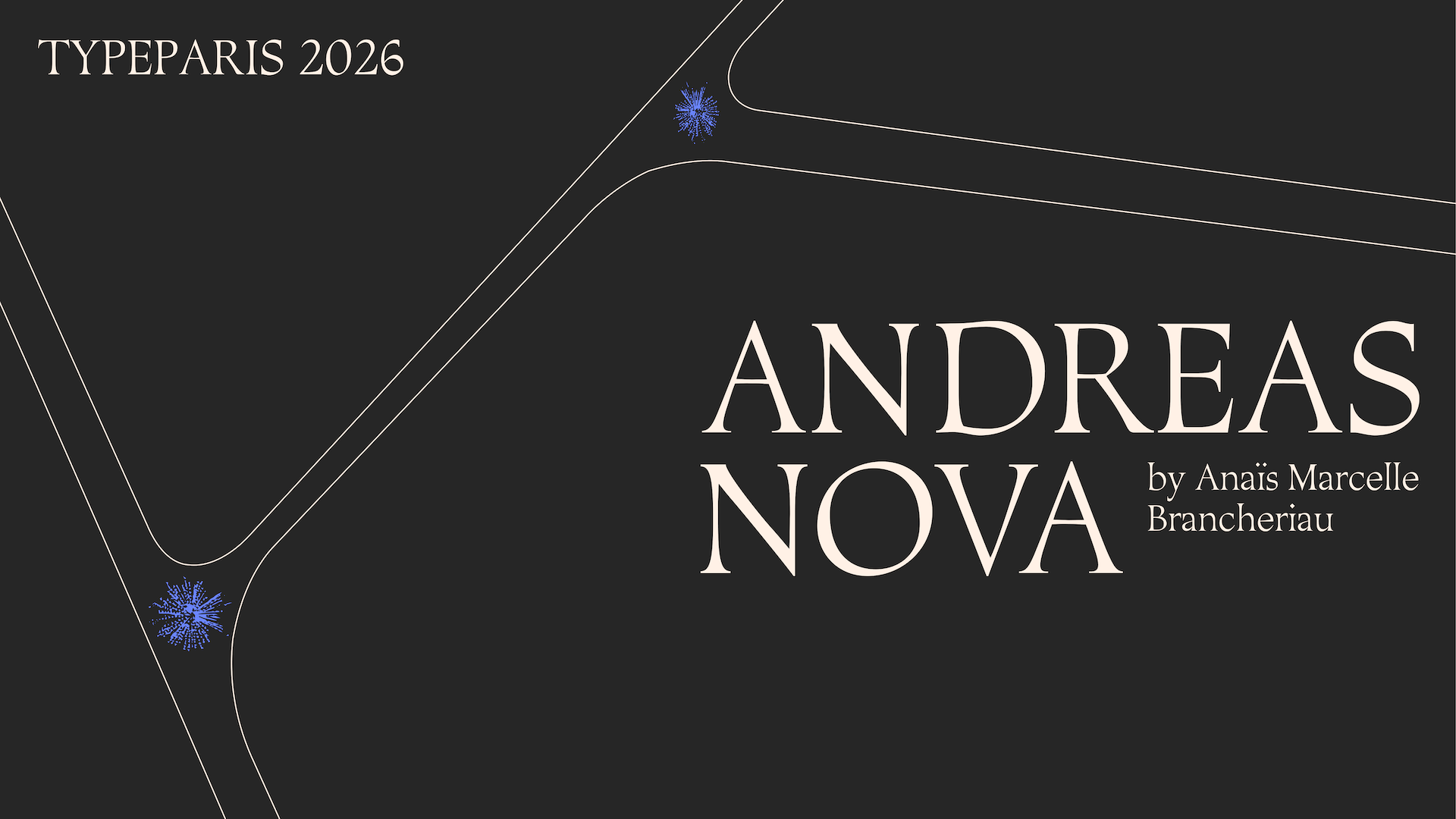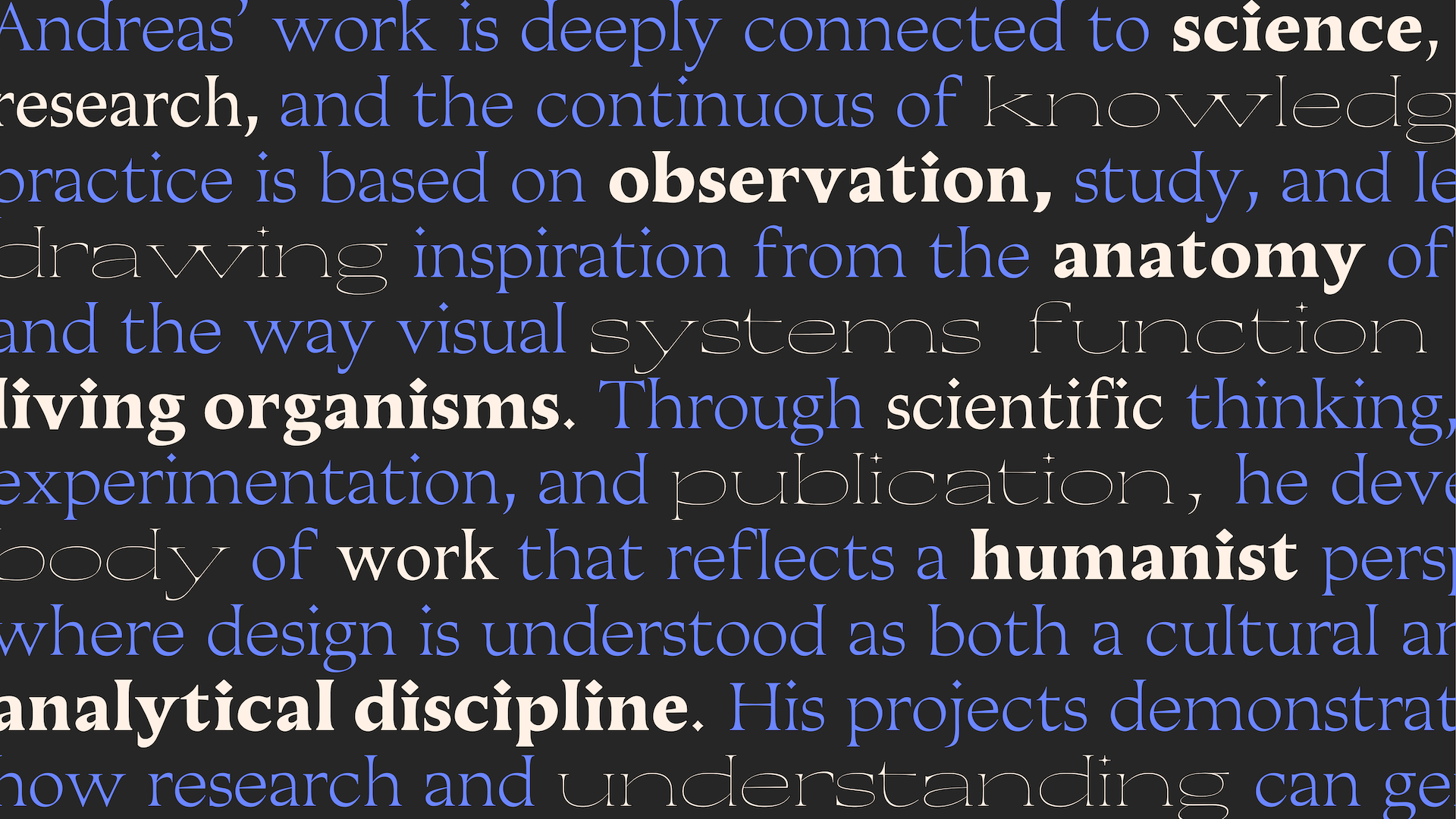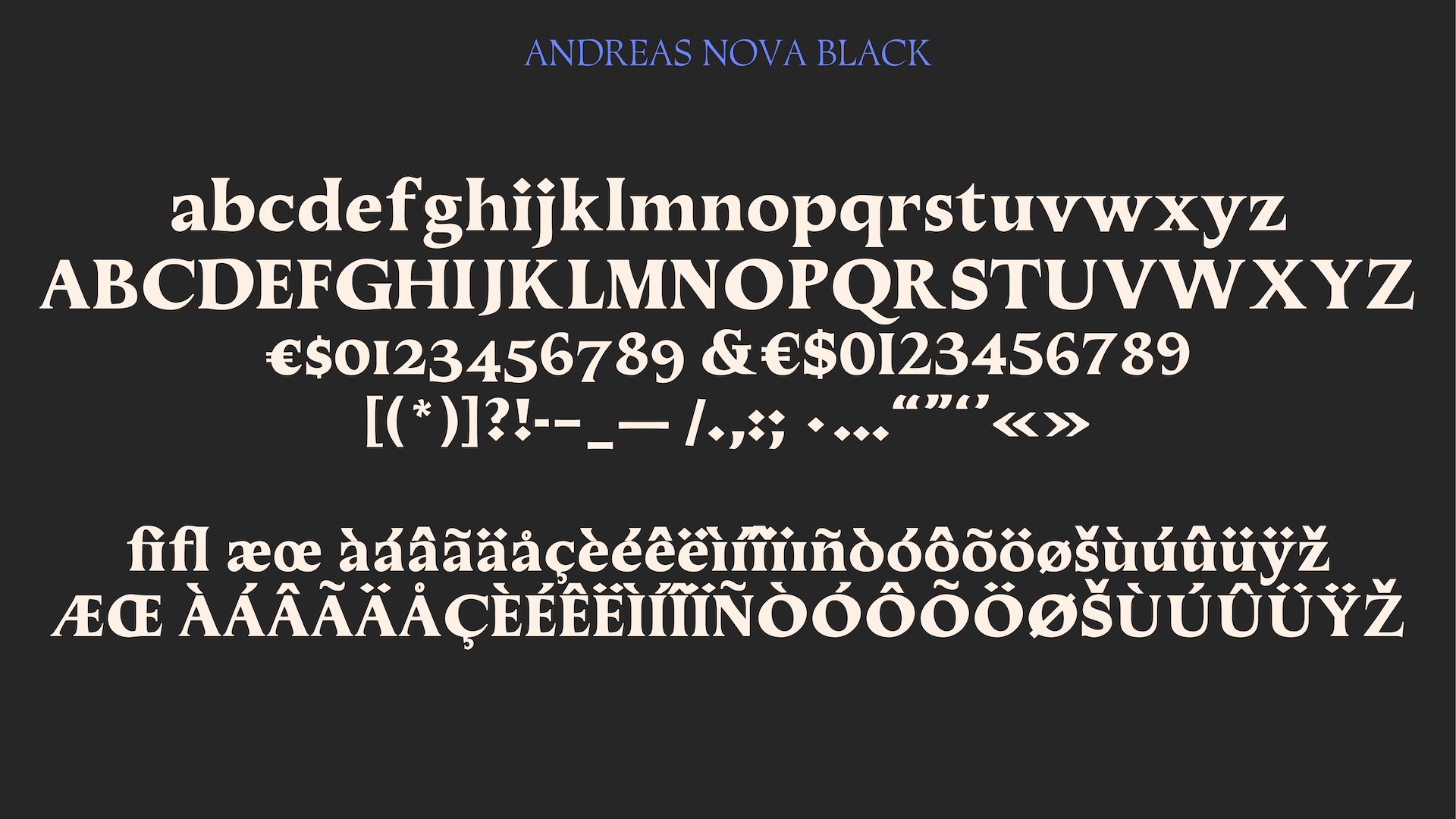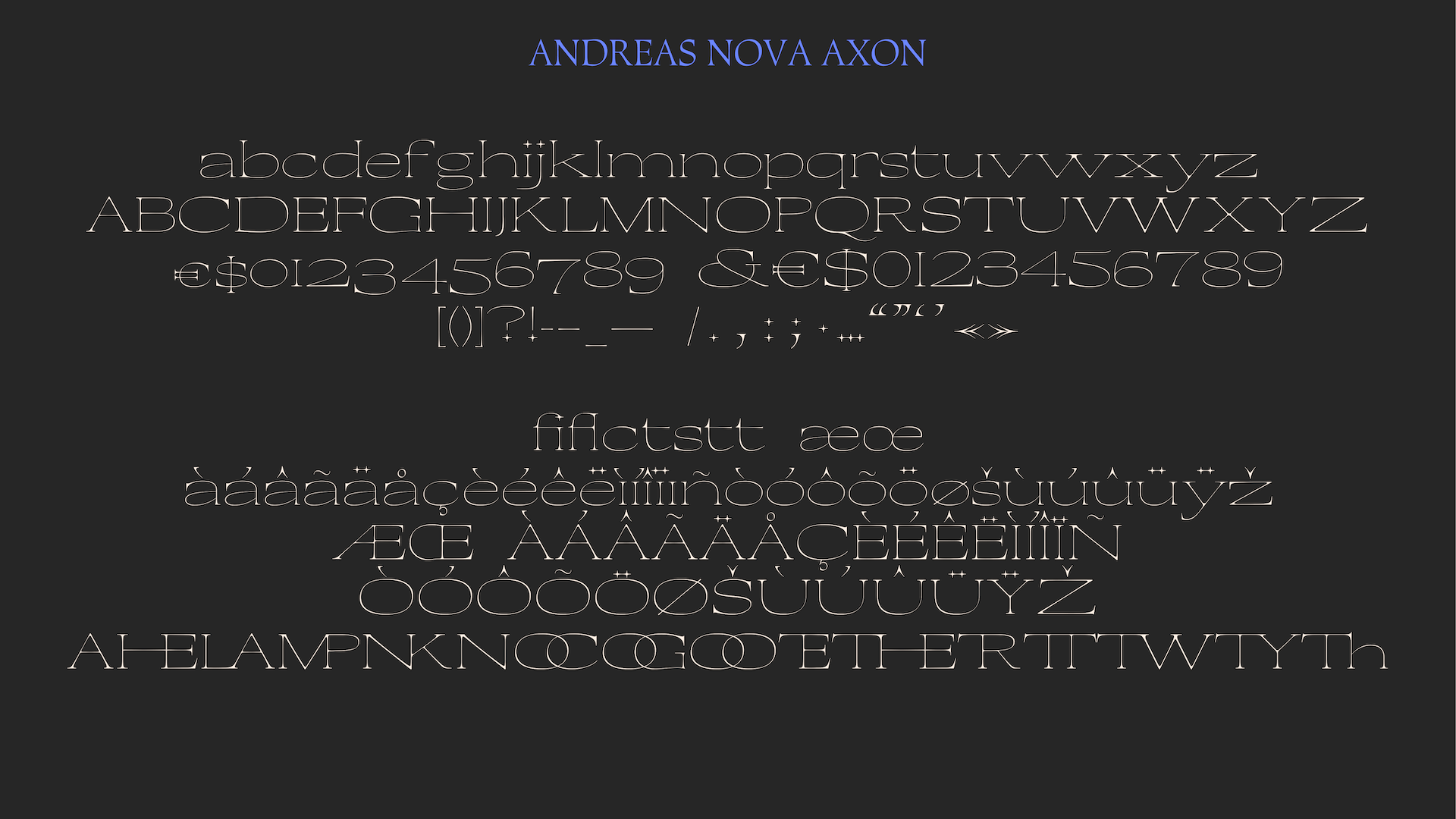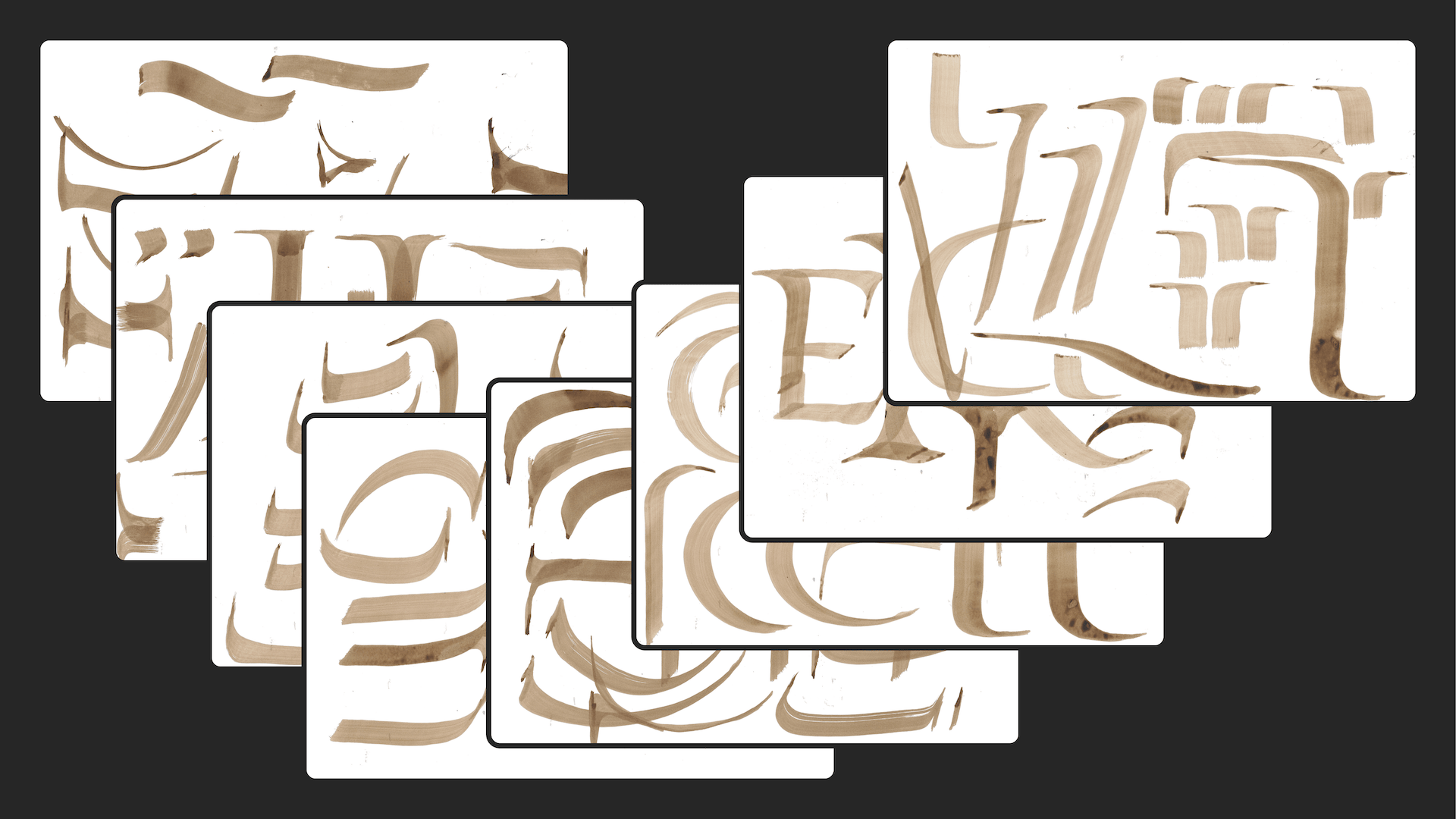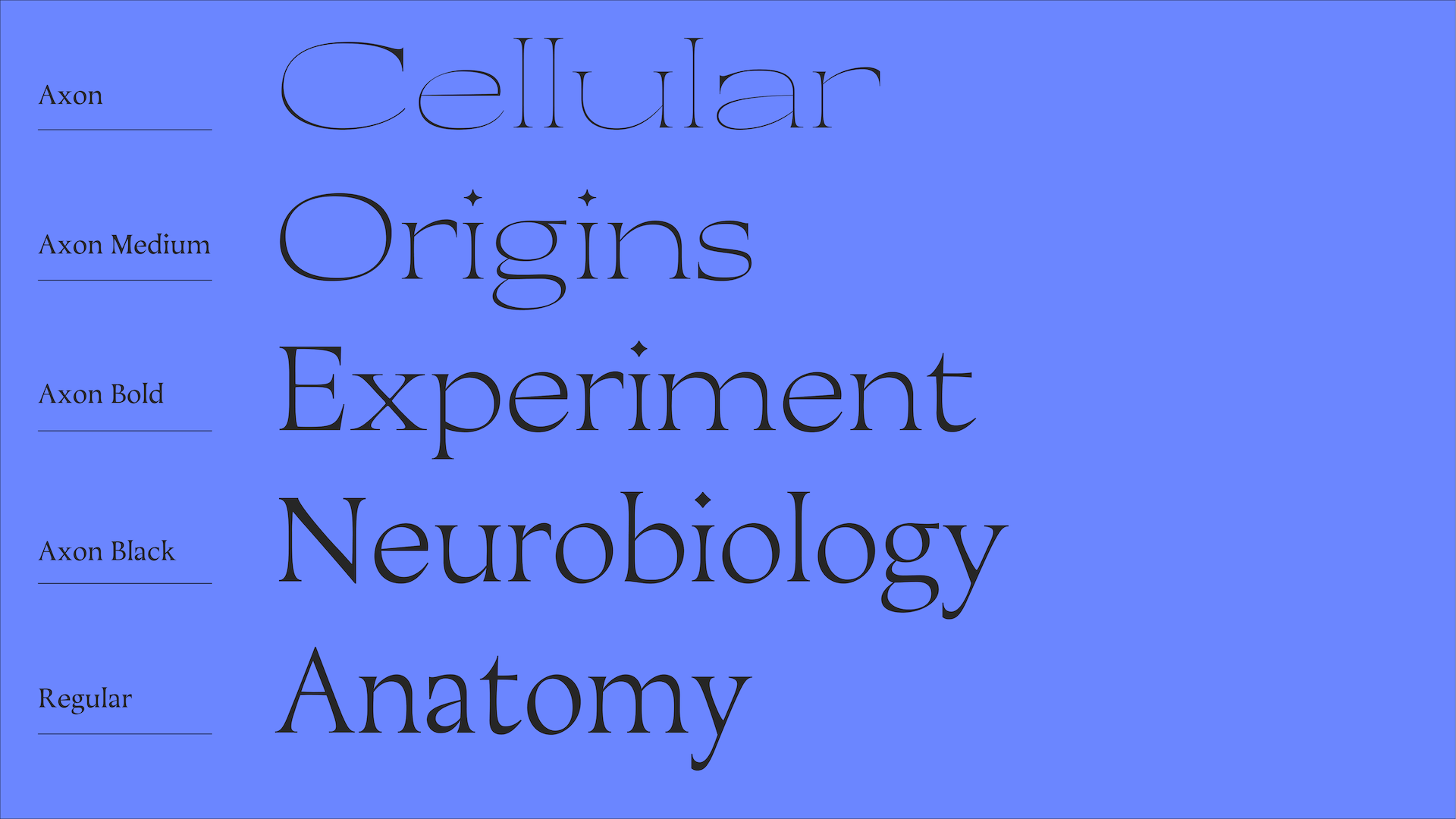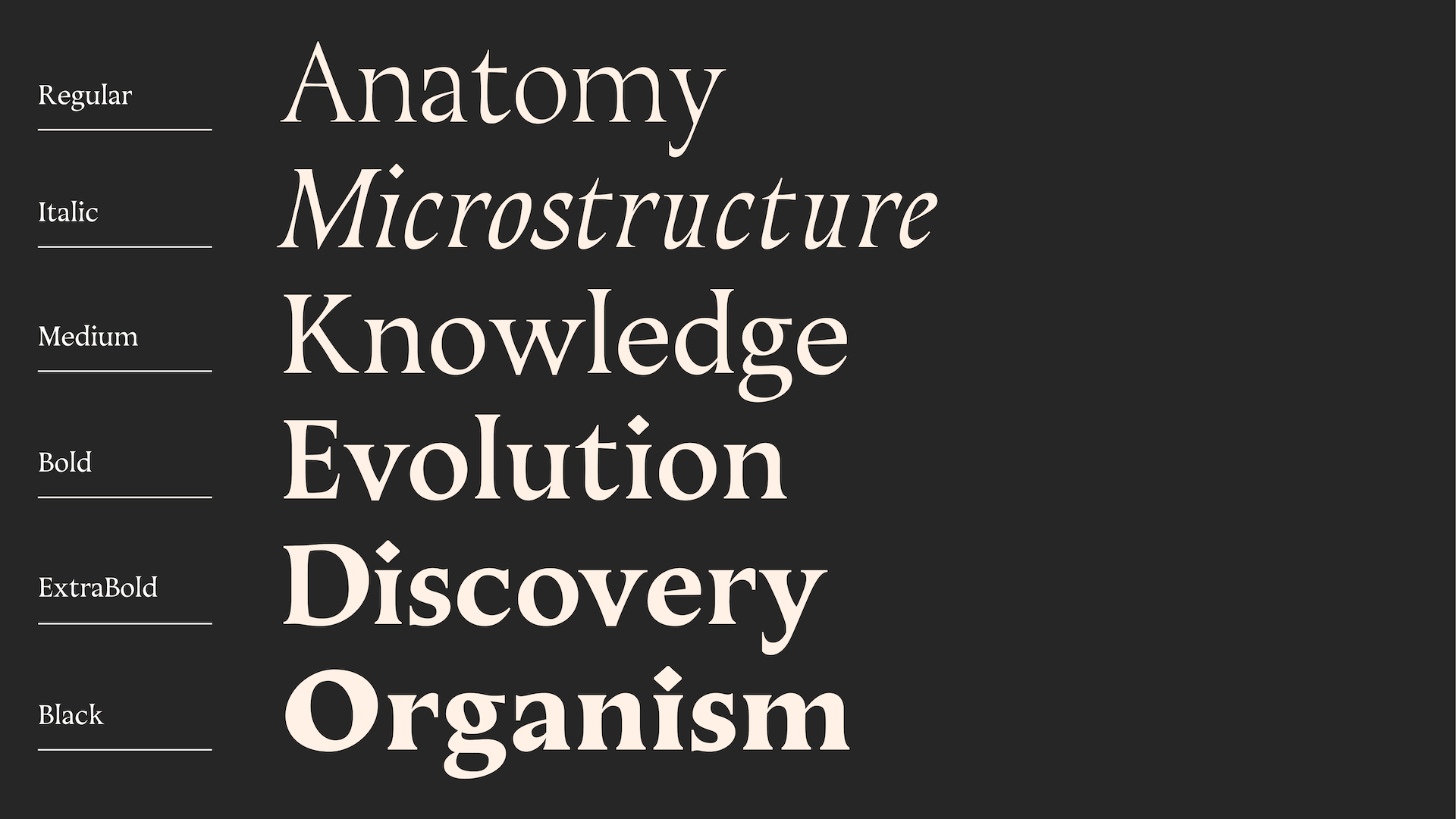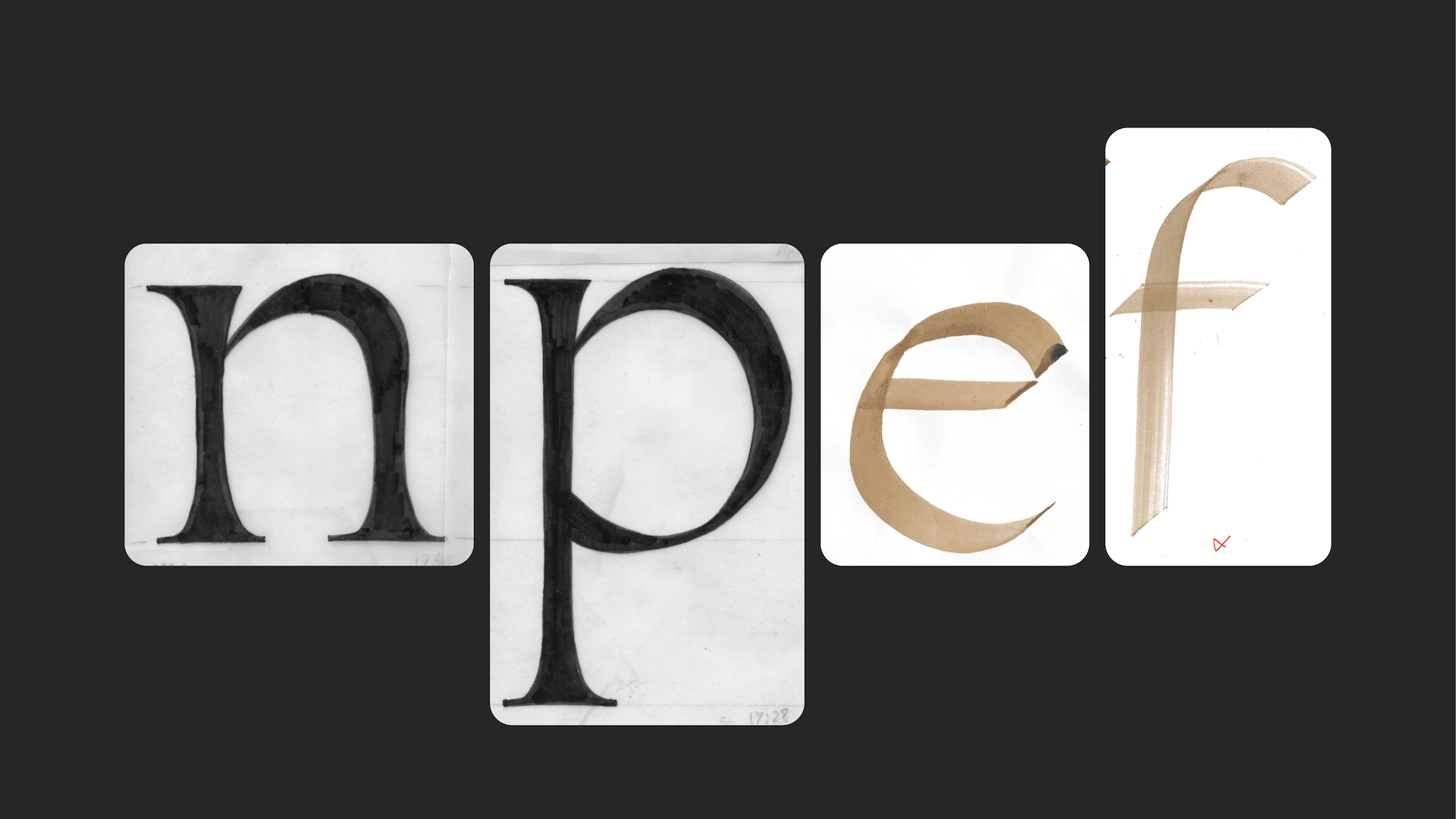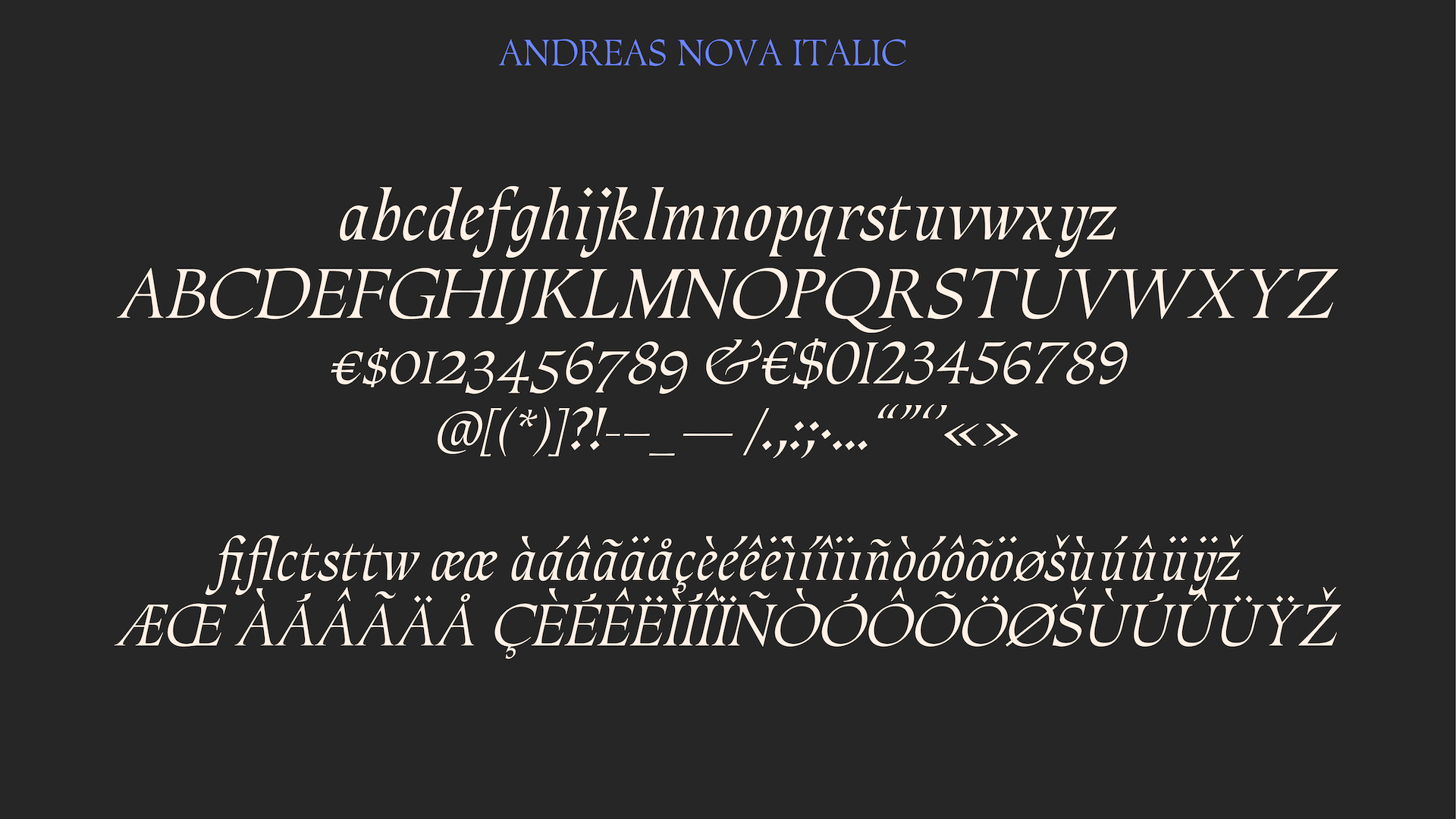
Andreas Nova
Andreas Nova, designed by Anaïs Marcelle Brancheriau, is a typeface created for the headlines of scientific research publications, with a particular focus on the field of biology. It belongs to the visual language of leading scientific publishers, where typography plays a fundamental role in structuring information and reinforcing the credibility of academic publications. Through this project, the aim is to create a typeface that is both rigorous and contemporary while remaining deeply rooted in the history of letterforms.
Andreas Nova draws inspiration from the earliest scientific books of the Renaissance, a period during which the invention of printing accelerated the dissemination of anatomical knowledge. Rather than directly imitating historical models, the typeface embraces their structural legacy, reinterpreting the construction principles of early letterforms through a contemporary graphic language. In doing so, it establishes a dialogue between the origins of modern science and today's research practices.
The name Andreas Nova refers to Andreas Vesalius, the Renaissance anatomist considered one of the founders of modern anatomy. His work De humani corporis fabrica (1543) transformed the study of the human body through observation and scientific illustration. Nova, from the Latin *novus* meaning “new,” expresses the idea of evolution, discovery, and innovation. Together, these two words connect the historical foundations of anatomy with the continuous progress of modern scientific research.
The identity of the typeface is built upon a vocabulary of contrasting forms. Its letterforms combine soft curves with sharp terminals, creating a constant tension between fluidity and precision. Strong stroke contrast gives the design a stable yet incisive presence. This duality makes each letter appear sculpted rather than simply drawn. The forms evoke both the expressive gesture of a brush and the permanence of carved stone, blending the fluidity of movement with the solidity of material. This dialogue between gesture and structure shapes the character's expression while reinforcing its historical heritage.
The Axone variable extends this concept by gradually transforming the structure of the letterforms. The shapes become increasingly fluid, as though connected by a network of organic links. Their outlines acquire an almost aqueous quality, while the design progressively reveals its underlying essence: a balance between a stable structural skeleton and sharper edges that define the tension of the forms. This evolution echoes biological networks and the mechanisms of living systems without ever compromising the typeface's readability.
This typographic research is driven by the idea that form should directly reflect the subject it is intended to serve. Inspired by the structures of living organisms, Andreas Nova explores the relationships between stability and transformation, rigidity and flexibility, heritage and evolution. Rather than merely conveying scientific information, the typeface supports scientific discourse through a visual identity that brings together typographic culture, the observation of life, and contemporary design.
Andreas Nova embodies a spirit of research in which typography becomes an extension of scientific thought. Inspired by anatomy and the life sciences, it evokes observation, an understanding of biological mechanisms, and the ongoing pursuit of new knowledge. Its design reflects a balance between precision and evolution: a stable structure that remains open to exploration and discovery. More than a typeface created for biological publications, Andreas Nova presents typography as a vehicle for knowledge—one capable of bringing together historical heritage, contemporary research, and a deeper understanding of the living world.